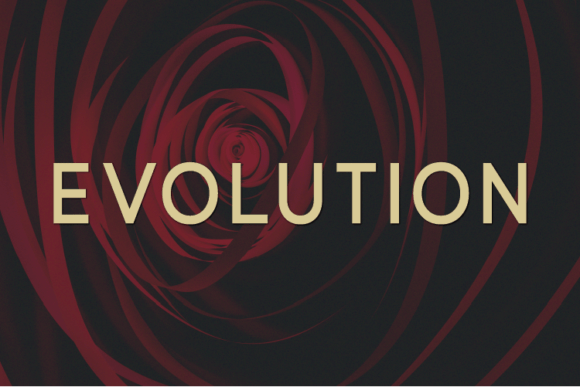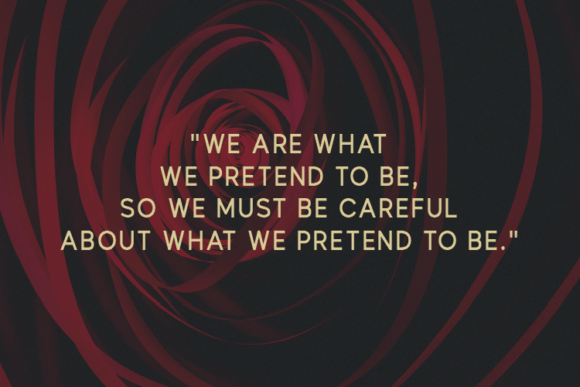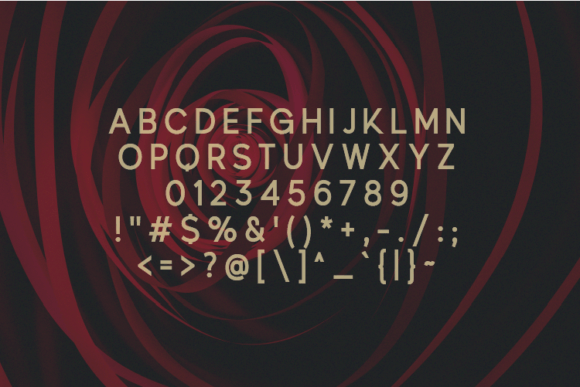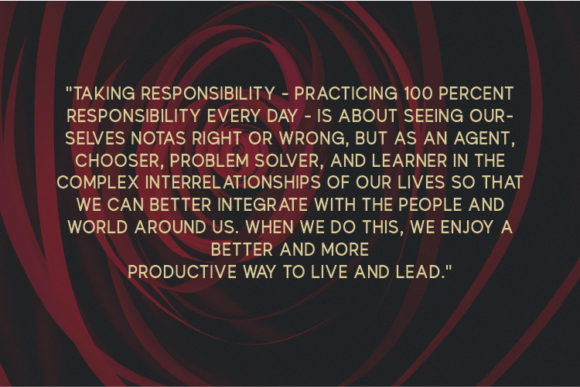
Evolution Font: A Modern Sans Serif for Elegant Logo Design
About the Evolution Font
Experience the unique personality of Evolution Font, a font designed for impact. Introducing Evolution, a modern, classy sans serif typeface.
An extremely versatile font, perfect for logos, weddings, invitations, quotes, advertisements, print, magazines, and more!
Evolution’s clean lines and confident geometry make it ideal for headlines, branding applications, and short-form text in posters or advertisements. Its modern feel lends itself well to minimalist designs and projects needing a sophisticated yet approachable aesthetic. However, its relatively high x-height might make it less suitable for extended body copy or UI elements where legibility over longer stretches is crucial.
Pairing Evolution works best with fonts that offer contrast. Consider a classic serif like Garamond for a touch of traditional elegance, or a playful script like Pacifico to soften its modern edge. For a bolder approach, a geometric sans-serif such as Futura would create a strong, unified visual statement.
Evolution possesses a bold yet refined personality, conveying both modernity and sophistication. Brands seeking to project a sense of innovation, quality, and trustworthiness will find it an excellent choice.
Evolution Font Usage Examples
Evolution Font Example